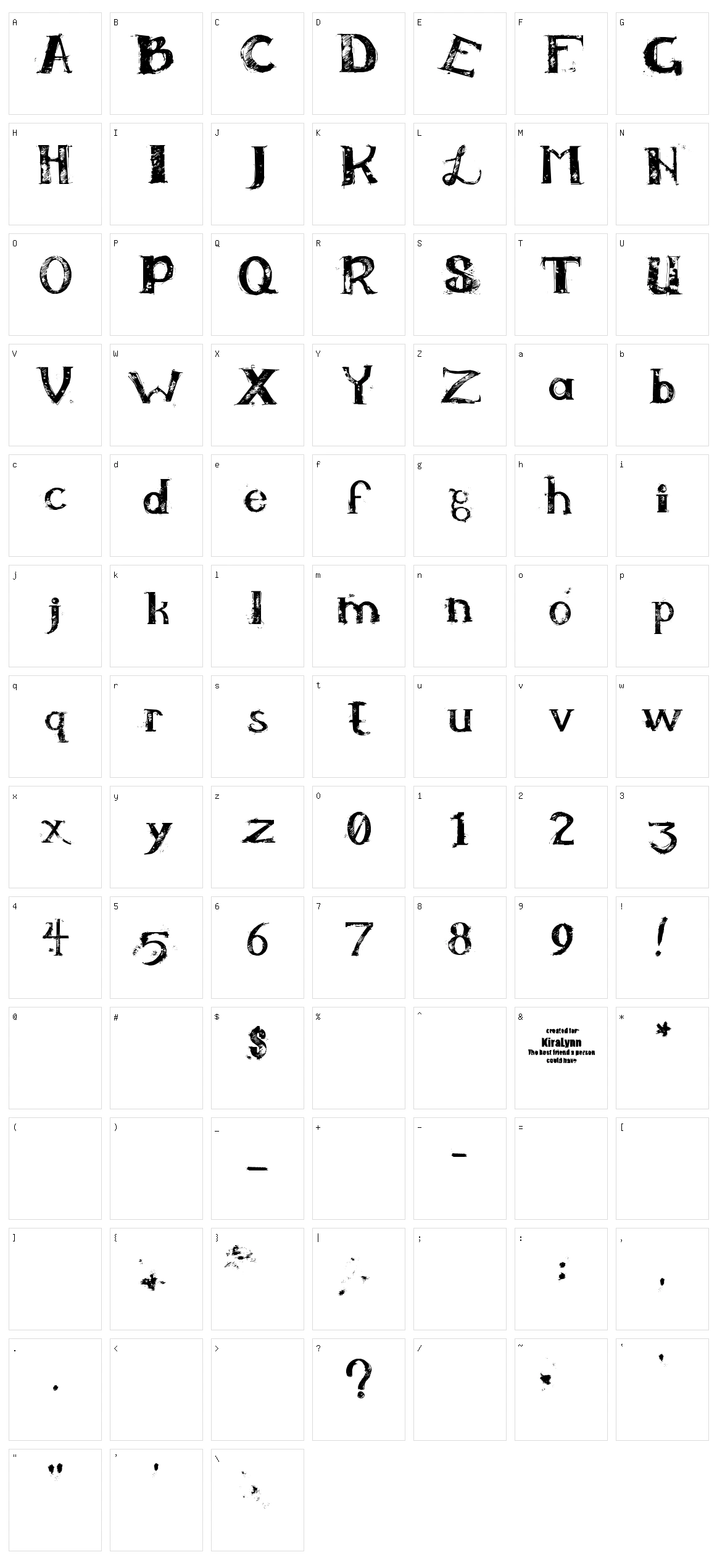
\,| and ~ create a space with a grunge spatter. { and } make a spatter on the letter you've just typed.
KiraLynn is dedicated to the real KiraLynn. Happy birthday. =)